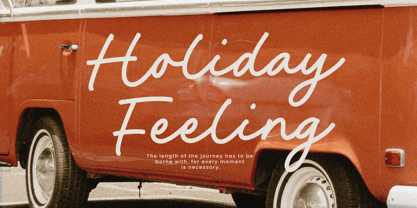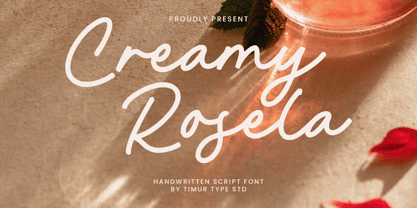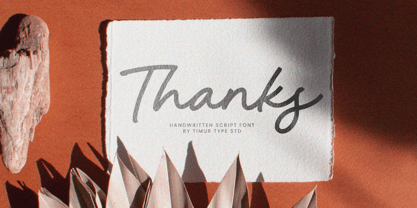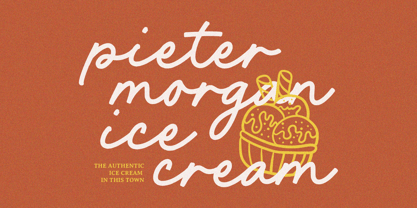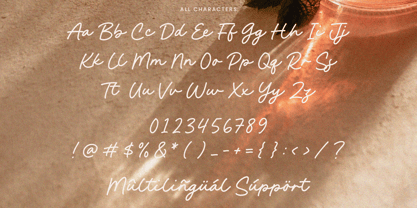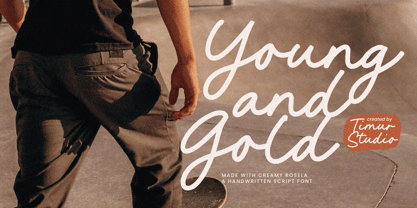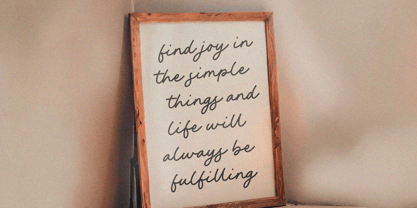
Creamy Rosela
by Timurtype
The Creamy Rosela Font Family was designed by Wara Sigit Tri Pamungkas and published by Timurtype. Creamy Rosela contains 1 styles. More about this family
Introduced by Timurtype Studio!
Creamy Rosela is a Handwritten Script Font
This font is a stylish handwritten script font featuring smooth, flowing lines and a natural, elegant charm. Perfect for branding, invitations, logos, and creative projects, it adds a personal and sophisticated touch with its delicate curves and modern aesthetic.
Creamy Rosela Font also supports multilingualism
Designers: Wara Sigit Tri Pamungkas
Foundry: Timurtype